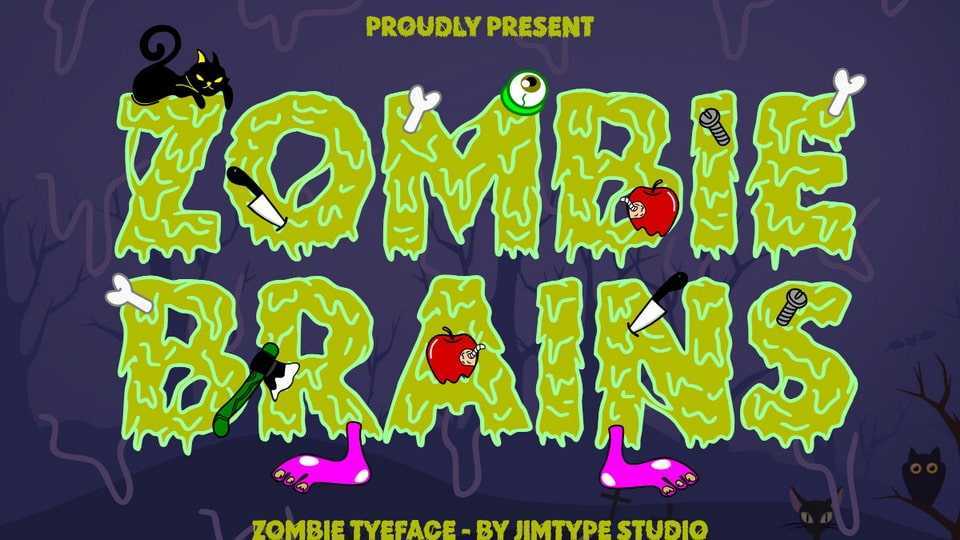
Download Zombie Brains font, a drippy, scary display typeface. Spooky and mysterious, Zombie Brains font is perfect for all your Halloween or horror-themed projects.